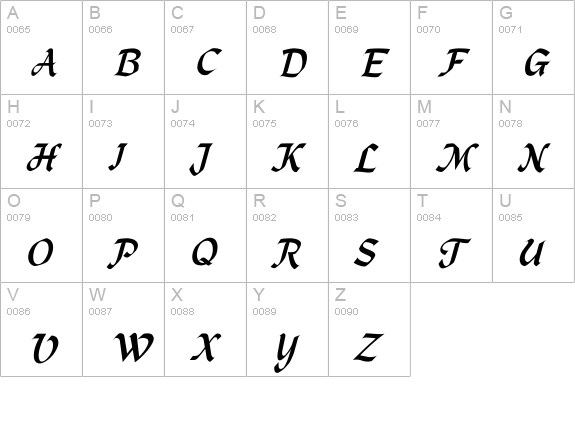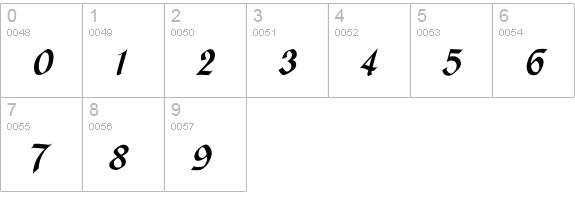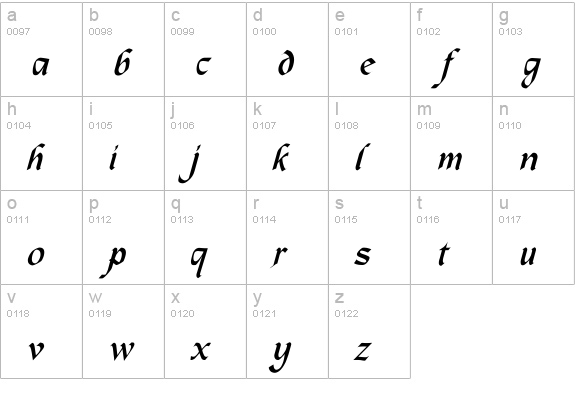
MacHumaine-Normal-Italic Font Details
MacHumaine-Normal-Italic is the standard, neutral, italic variant in the MacHumaine typeface family \xE2\x80\x94 well suited to general body text, paragraphs, and standard typographic work.
MacHumaine-Normal-Italic is a visually stunning and stylish font that effortlessly combines elegance with a touch of playfulness. Its graceful curves and slanted letterforms create a sense of dynamism and finesse, making it perfect for adding a touch of sophistication to any design project. This font is designed with a unique blend of classic and modern influences, resulting in a typeface that is both timeless and contemporary. The italic style adds a subtle twist to the traditional letterforms, giving them a sense of fluidity and movement that is captivating to the eye. MacHumaine-Normal-Italic is not only a visually appealing font, but it is also incredibly versatile. Its legibility and clarity make it ideal for a wide range of applications, from headlines and titles to body text and captions. It effortlessly adapts to various design styles, whether you are creating a sleek and modern website or a vintage-inspired print design. One of the best things about MacHumaine-Normal-Italic is that it is freely available to download at FontsMarket.com. This means that you can access this stunning font without any cost, allowing you to enhance your designs without breaking the bank. The generous availability of this font ensures that it can be enjoyed by designers, artists, and enthusiasts alike, making it a true gem in the world of typography. So whether you are working on a professional project or simply looking to add a touch of elegance to your personal creations, MacHumaine-Normal-Italic is the perfect font to elevate your designs. With its timeless beauty, versatility, and the fact that it is freely available, this font is a must-have for anyone seeking to make a statement with their typography.